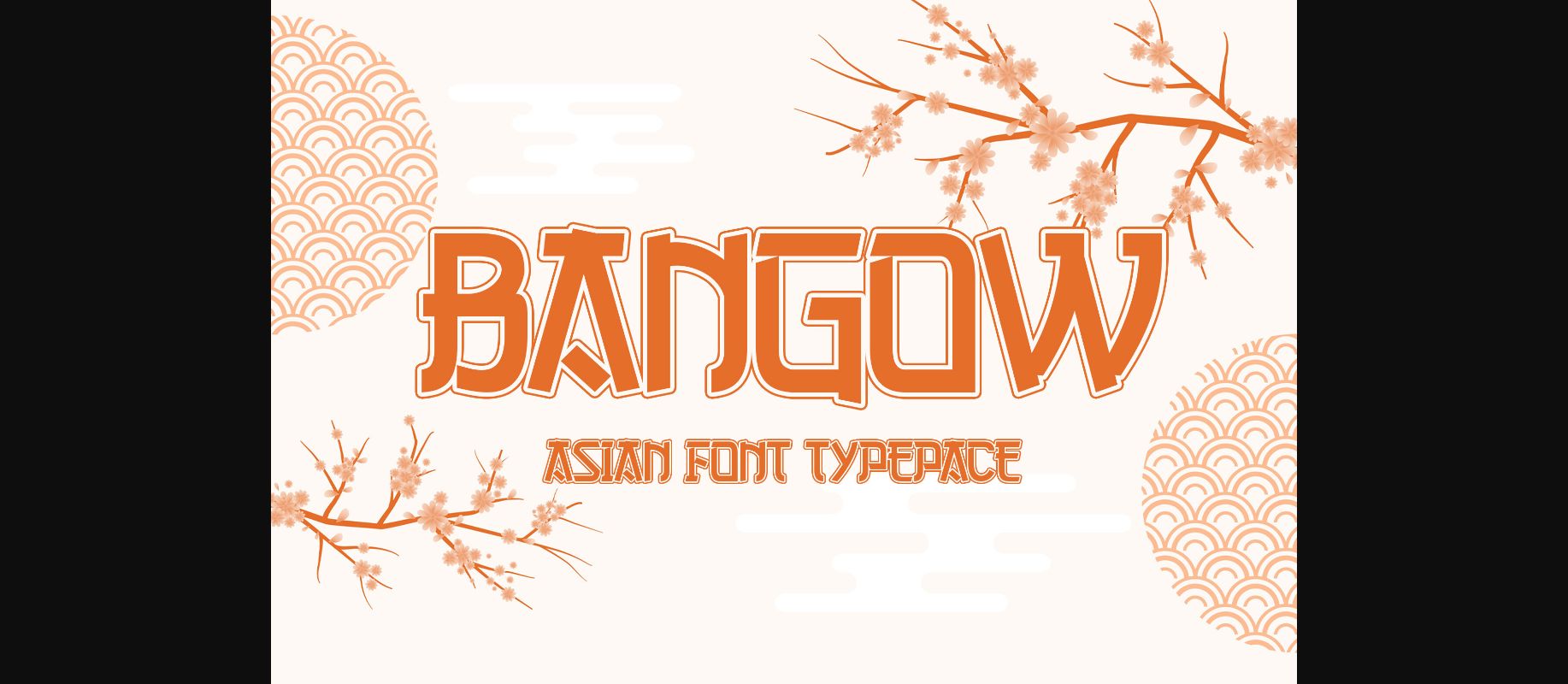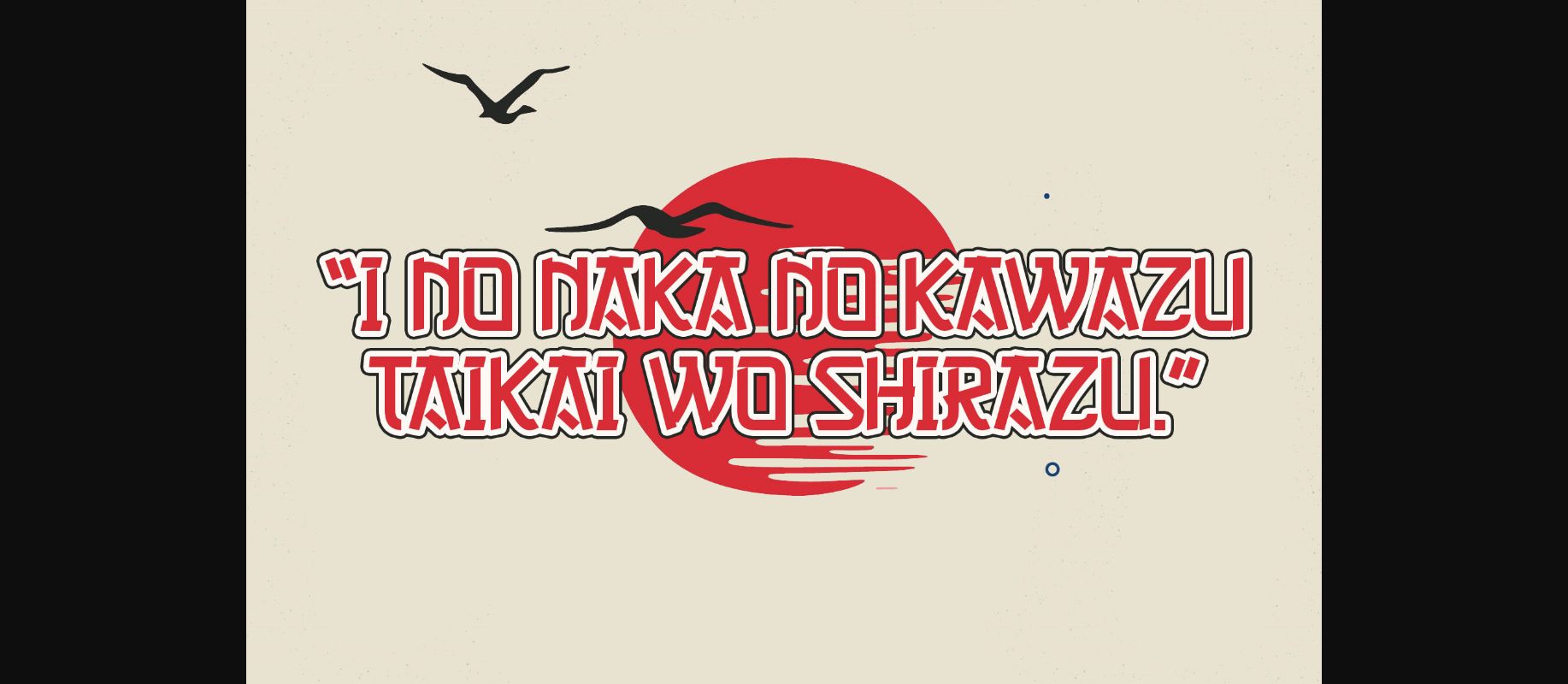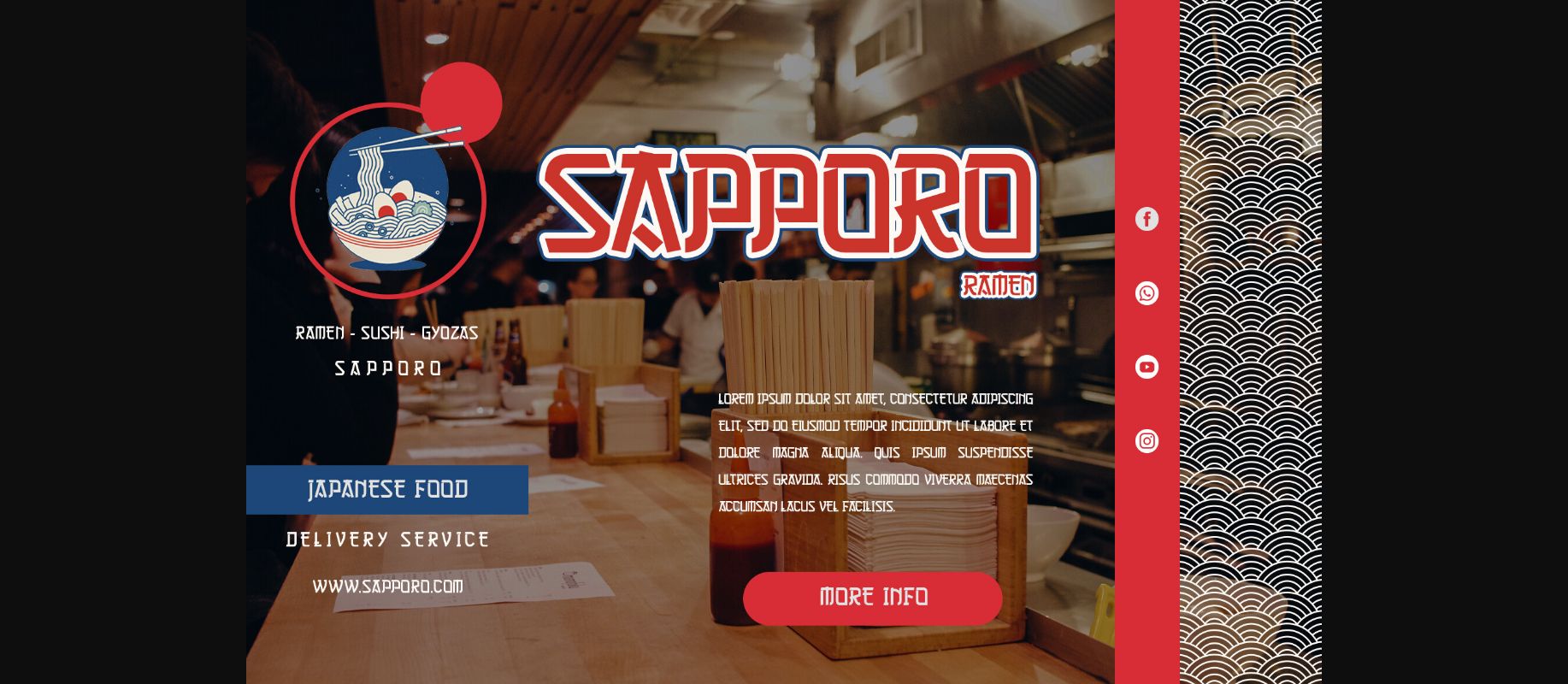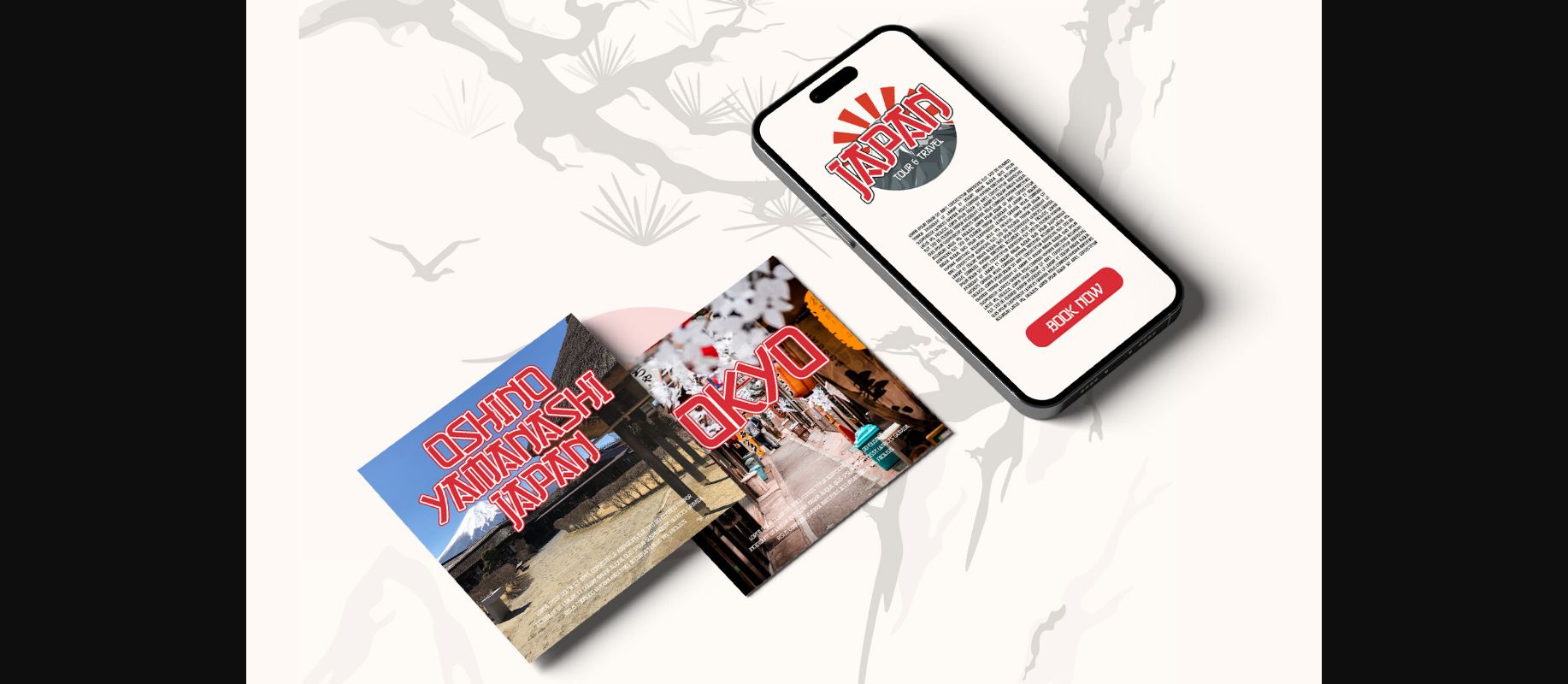
About Bangow Font
BAN-GOW Inspired by Asian typography culture such as ink and brush handwriting. Perfectly fit for your Japanese concept, Japanese food, Chinese New Year projects, Logo, Branding, Restaurant, China Town decoration, or Chinese concept, anytime you need an instant vibe.